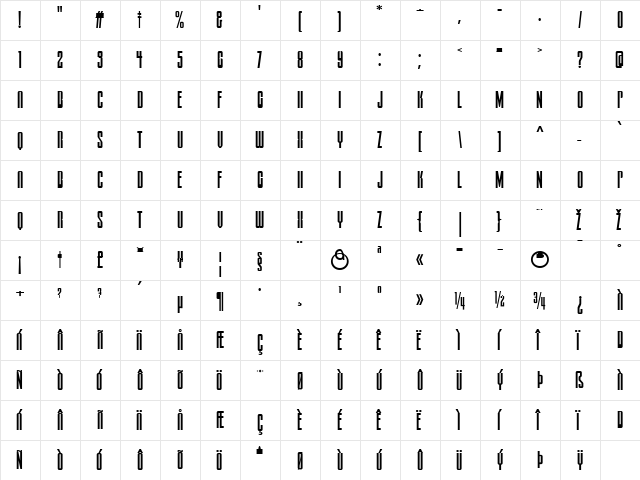
DELIRIUM NCV Regular
Design Context for DELIRIUM NCV Typeface
DELIRIUM NCV is a composed and adaptable typeface that performs quietly and consistently across a wide range of design contexts.
Pro Tip: Use DELIRIUM NCV in both headline and body roles to test its range before committing to a single application.